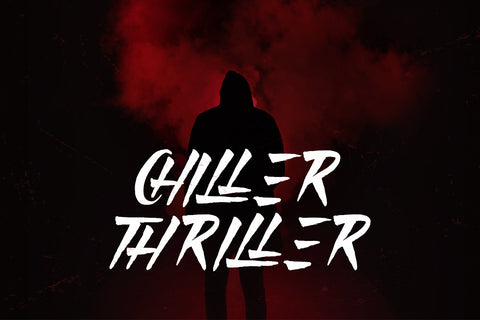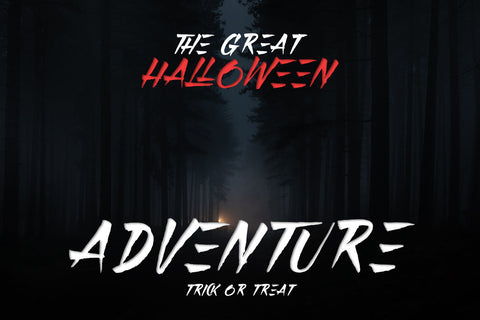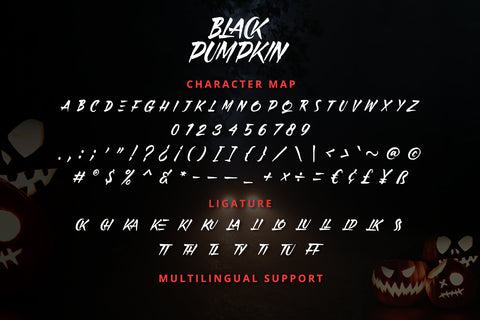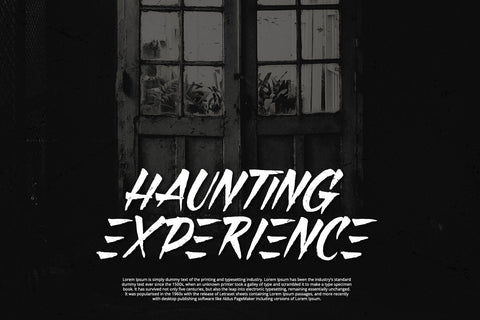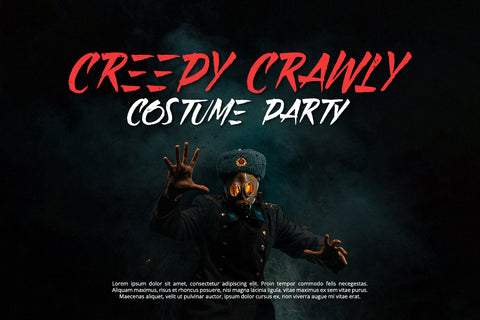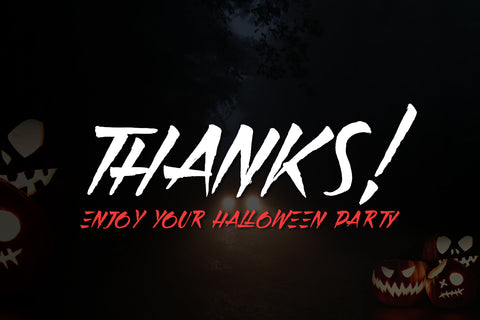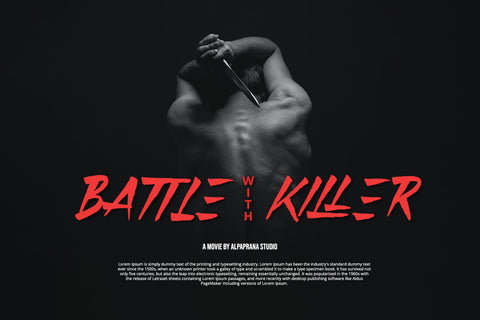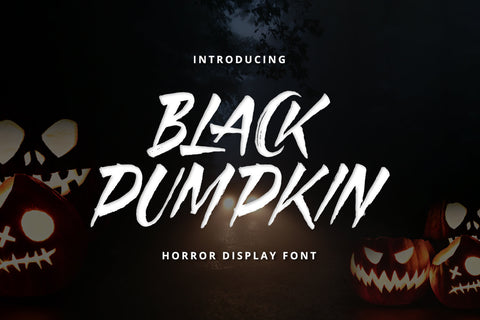
Black Pumpkin - Horror Display Font
Black Pumpkin is a stunning horror display font with cute and playful feels. It will be perfectly used for Branding, Logo Design, Lettering, Logotype, Clothing, Poster, magazine, packaging, posters, shopping bags, t-shirts, book covers, photography, special events and other design project.